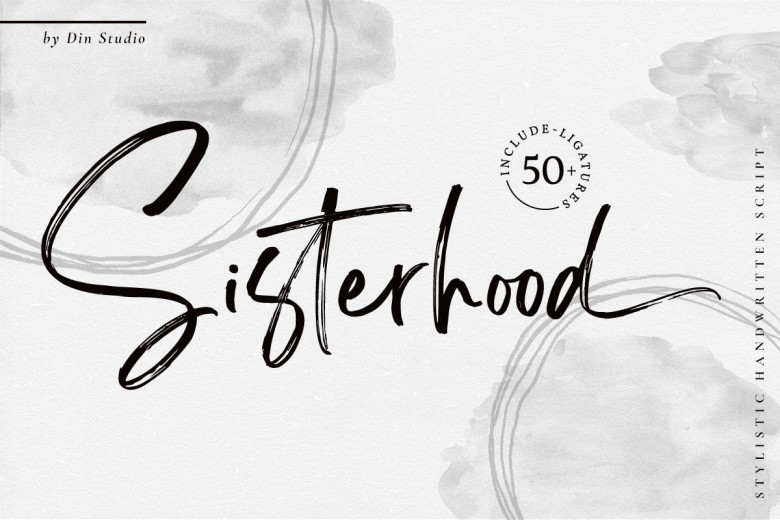
Sisterhood Brush Script Font
Sisterhood Brush Script Font has almost an unique brush signature design that posseses elegancy and charm. Fluidity of ink and hardness of brush created the unique characteristics of the font. You can see the harmony of the curls among the letters.